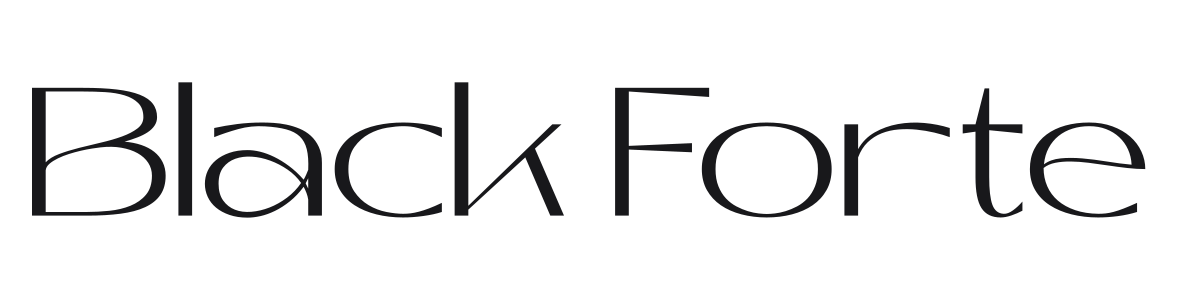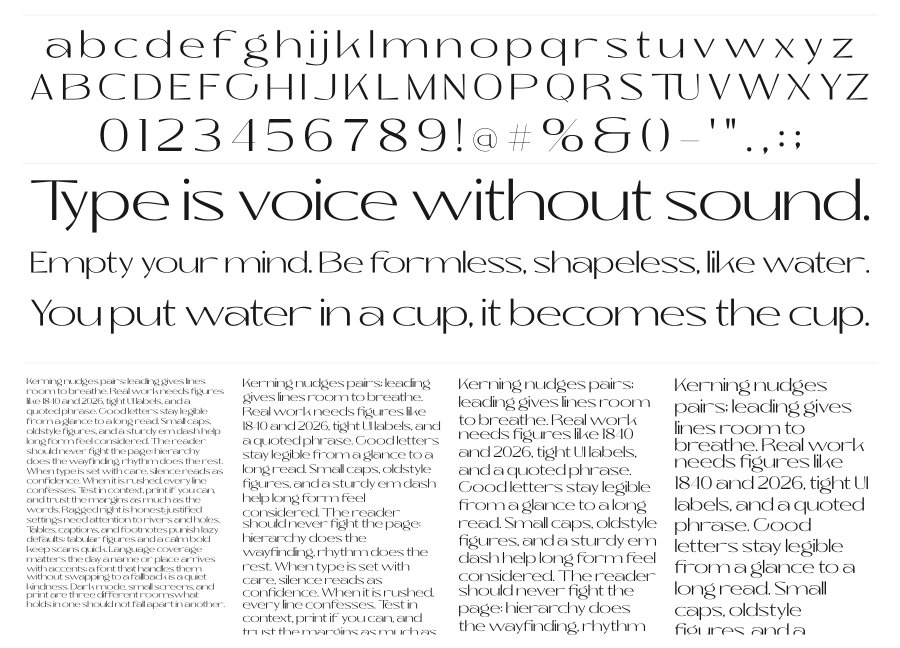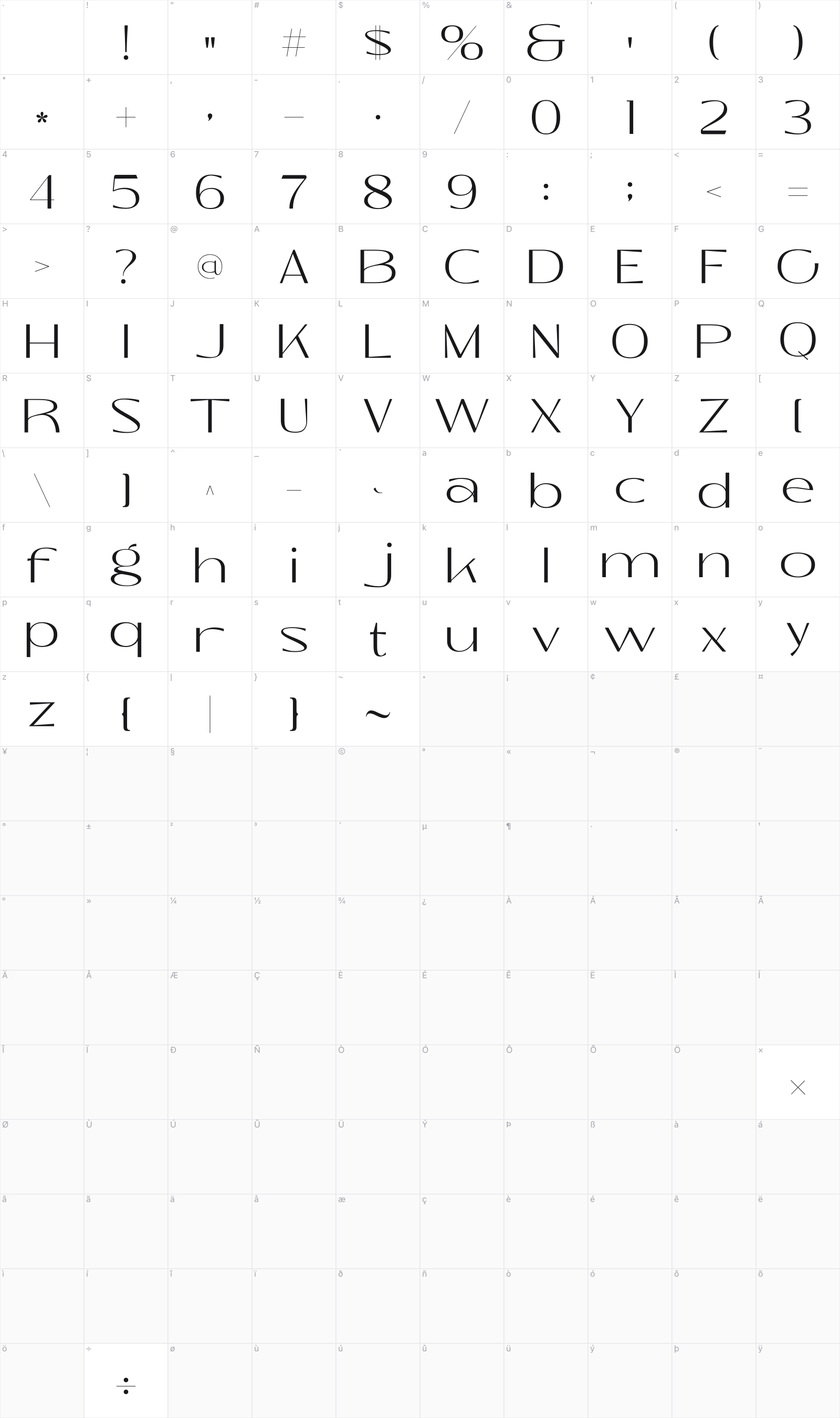
Black Forte
Black Forte is a wide, high-contrast display sans with hairline-thin strokes that give it an unmistakable editorial elegance. The flared terminals and generous spacing lend it a quiet Art Deco sensibility without leaning into pastiche. It shines at large sizes in fashion branding, magazine headlines, and luxury packaging.